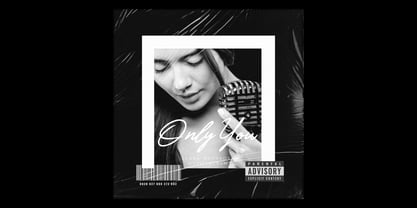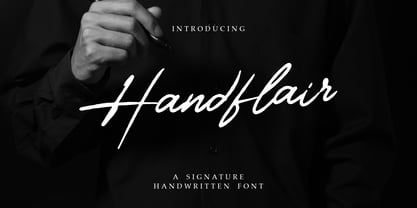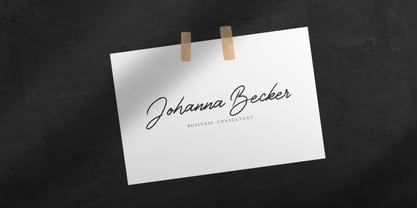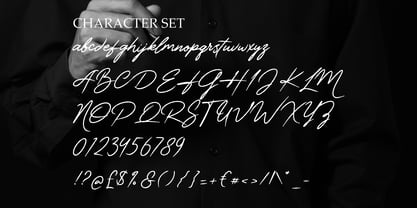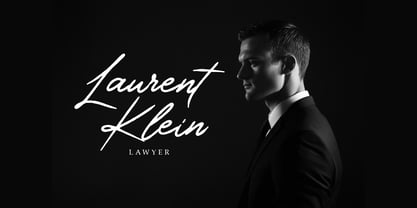
Handflair
by Shanaf
The Handflair Font Family was designed by Yesie Erma Yunita and published by Shanaf. Handflair contains 1 styles. More about this family
Handflair Signature Font is a sophisticated handwritten typeface designed to capture elegance, personality, and refined charm. Its smooth, flowing strokes resemble authentic penmanship, making it ideal for projects that require a touch of exclusivity and professionalism. Each letter is crafted with natural curves and stylish connections, balancing modern simplicity with luxury. The font’s graceful appearance ensures versatility, working beautifully across both digital and print designs. From personal branding to luxury product packaging, Handflair Signature Font adds authenticity and flair to every project.
The font layout emphasizes clarity and artistry, with uppercase characters exuding confidence and lowercase forms maintaining fluidity. It pairs perfectly with fashion branding, wedding invitations, book covers, and film titles. Its polished cursive style creates memorable signatures for logos, business cards, and elegant advertising campaigns. Handflair Signature Font brings sophistication without compromising readability, making it a must-have for designers seeking timeless style. With its versatility and classic handwritten appeal, this font elevates any visual identity into something distinctive and unforgettable.
Designers: Yesie Erma Yunita
Foundry: Shanaf